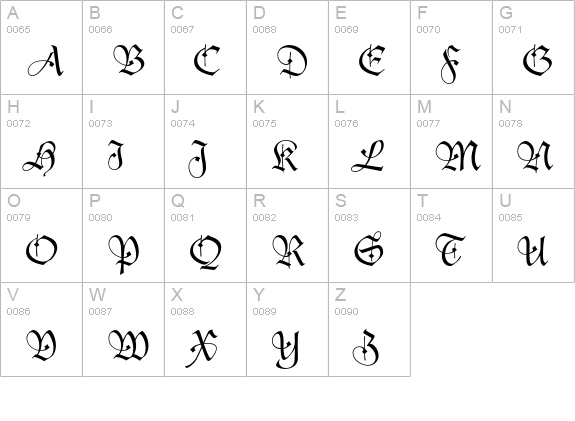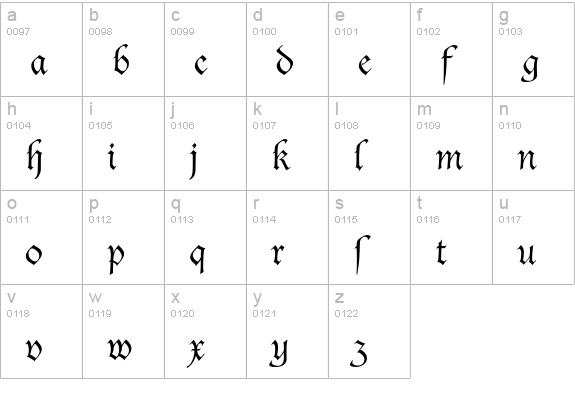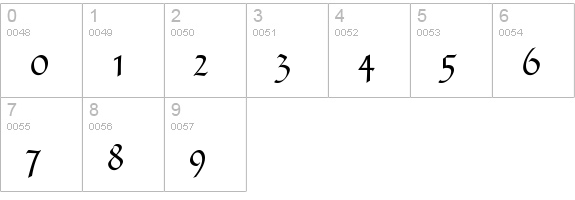
Duc De Berry Dfr Font Details
Duc De Berry Dfr font is a stunning display typeface that exudes elegance and sophistication. Its intricate details and classic design make it perfect for adding a touch of luxury to any project. This font is free to download at FontsMarket.com, allowing you to effortlessly elevate your designs with its timeless charm. With its graceful curves and ornate flourishes, Duc De Berry Dfr font is sure to make a statement and captivate your audience. Whether you're working on invitations, branding, or editorial projects, this font will bring a touch of refinement and beauty to your work. Download Duc De Berry Dfr font today and let its regal charm shine in your designs.